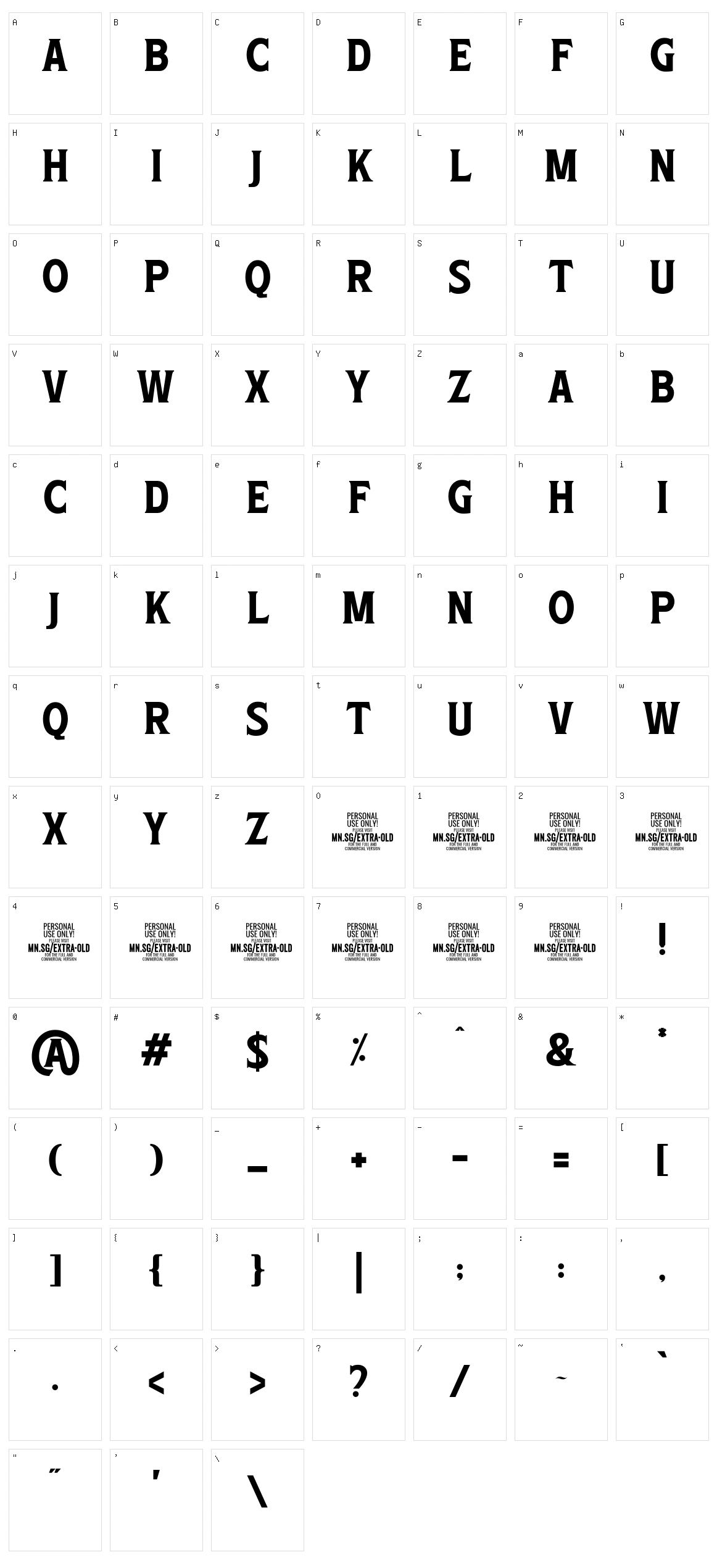
Extra Old is a vintage serif typeface.
With heavy strokes and minuscule serifs, this classic font family is the perfect lettering for a headline to emit genuine quality. Why not use Extra Old for a traditional logo or balanced product label.
Created with pride and care, this type has the optimal appearance of a classic vintage logo but for a modern setting.
The font family consists of Regular and Italic, as well as Bold and Bold Italic.
Also included are the font styles Coaster and Floria Corner, two typefaces for beautiful decorative elements, combining with the lettering.
The font is built with advanced OpenType functionality and has a guaranteed top-notch quality, containing stylistic and contextual alternates, ligatures and more features; all to give you full control and customizability.
It has extensive lingual support, covering all Latin-based languages, from Northern Europe to South Africa, from America to South-East Asia.
It contains all characters and symbols you'll ever need, including all punctuation and numbers.